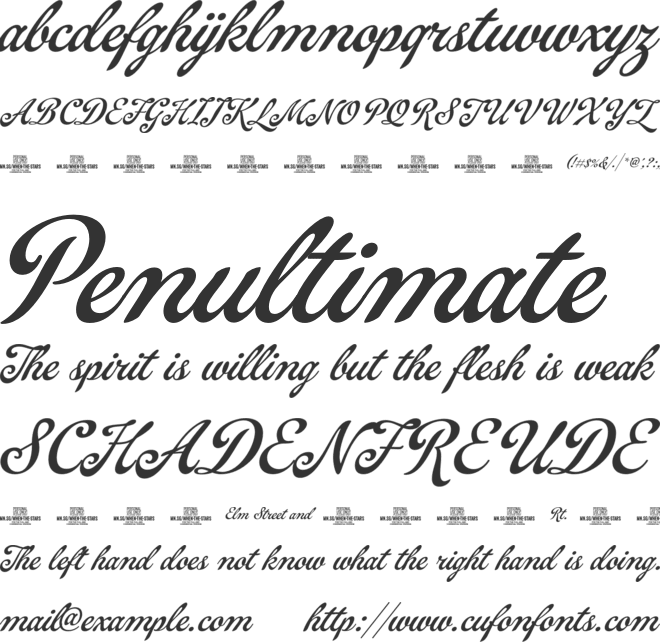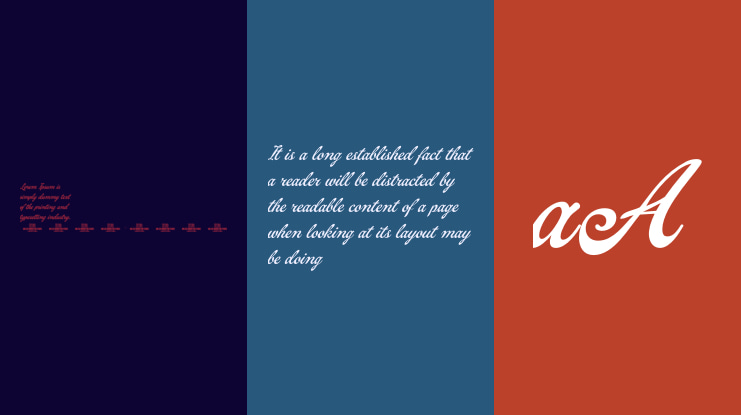
When The Stars Align PERSONAL Font
Mans Greback
NOTE: This font is for PERSONAL USE ONLY!To purchase a commercial license, visit:https://www.mansgreback.com/product/when-the-stars-alignWhen The Stars Align is an elegant script with a calm, luminous presence.Its letterforms flow smoothly, with gentle contrast and carefully shaped curves that give the text a sense of balance and intention. Subtle swashes and soft joins add friendly character.For questions, please visit https://mansgreback.com/faq